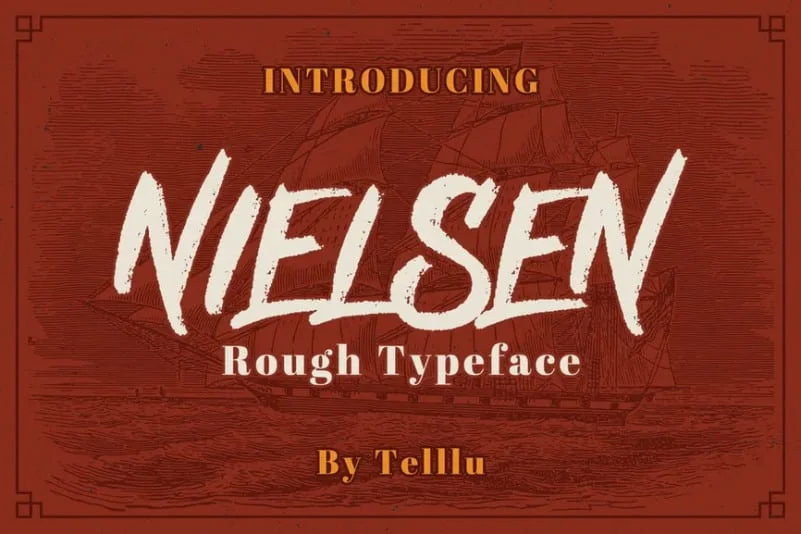
Nielsen Rough
Nielsen Rough Font is perfect for vintage branding, craft brewery labels, artisan product packaging, rustic restaurant menus, distressed poster designs, heritage brand identities, weathered signage, handcrafted goods labels, vintage concert posters, retro advertising campaigns, authentic barbershop materials, and industrial-themed projects.
What makes Nielsen Rough Font exciting is its authentic weathered character that captures the essence of time-worn craftsmanship through carefully distressed letterforms and genuine texture. This compelling typeface embodies the beauty of age and authenticity, combining vintage appeal with contemporary functionality that resonates with audiences seeking genuine quality and traditional values. The font's distinctive roughened edges and organic imperfections create visual interest and tactile quality that stands out in today's digital landscape. Its rugged personality makes it perfect for brands that want to communicate heritage, craftsmanship, and the enduring appeal of handmade quality.
The Nielsen Rough Font family includes regular, medium, and bold weights, featuring multiple distressed variations, vintage alternates, and weathered decorative elements. The character set incorporates rough-textured numerals, aged punctuation marks, and authentic stylistic details that enhance the font's vintage character and provide designers with comprehensive distressed design options.
Whether you're creating heritage brand identities, designing artisan marketing materials, or developing vintage-themed communications, Nielsen Rough Font Free Download provides the authentic character your weathered projects require. This premium distressed font excels in applications where authenticity and craftsmanship heritage are essential for connecting with audiences who appreciate traditional quality and handmade values. The font's weathered qualities work magnificently across packaging, signage, and digital applications, making it an invaluable asset for designers targeting artisan and heritage markets. Craft businesses and authentic brands choose this font for its ability to communicate genuine quality while maintaining commercial appeal and professional standards. The comprehensive character set supports multiple languages while preserving its distinctive weathered aesthetic perfect for international heritage applications. Professional designers appreciate its versatility in creating cohesive vintage brand systems that honor traditional craftsmanship and authentic production methods. When you implement this exceptional typeface in your heritage communications, you're selecting a typography solution that celebrates authentic craftsmanship and traditional values, ensuring your brand connects with audiences seeking genuine experiences and quality materials in today's mass-production environment while maintaining the rugged credibility essential for success in artisan and heritage markets.